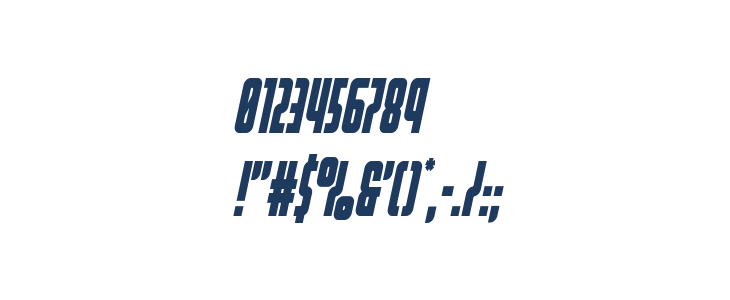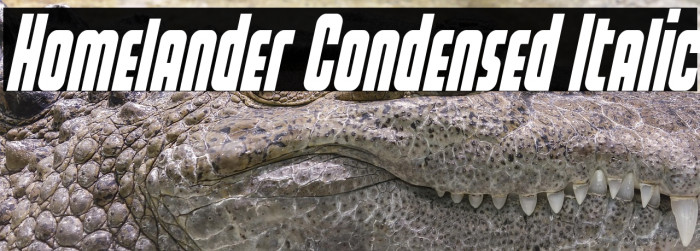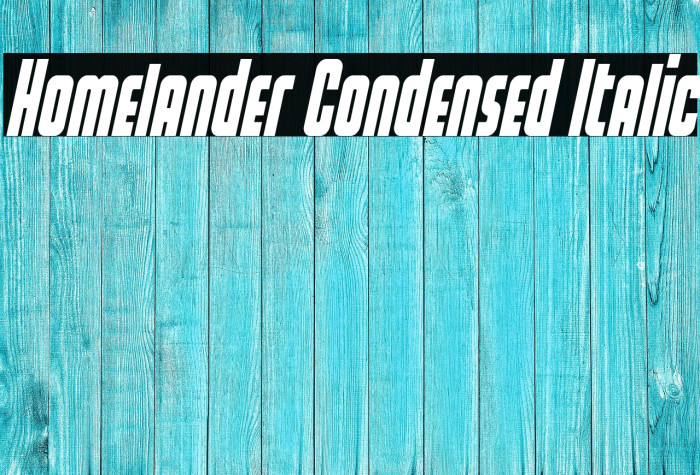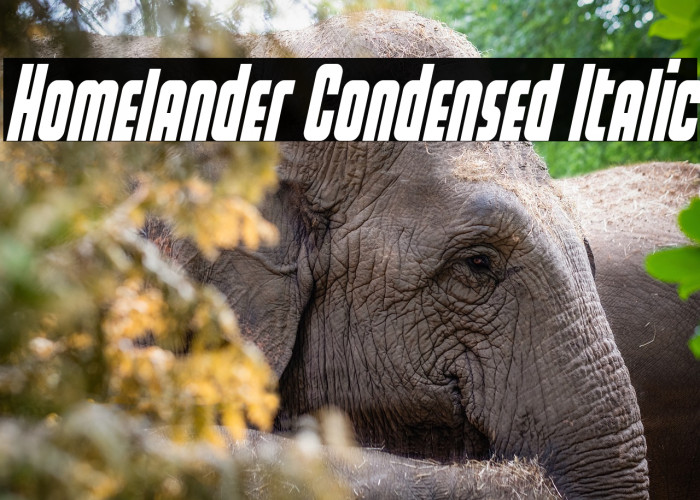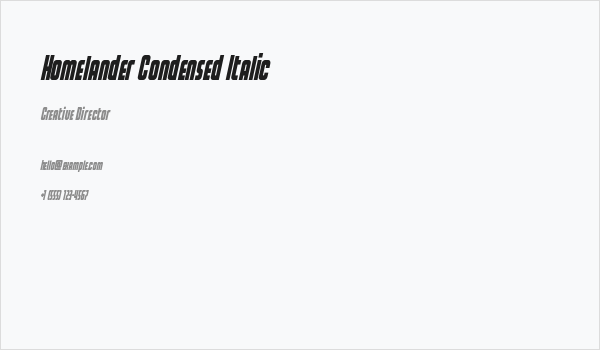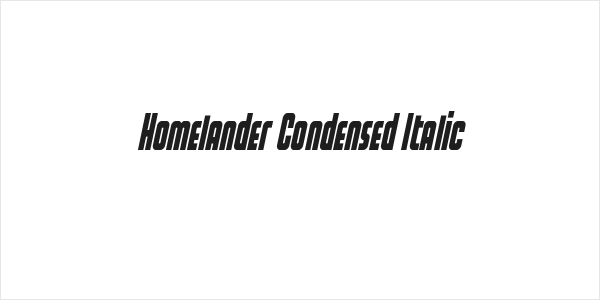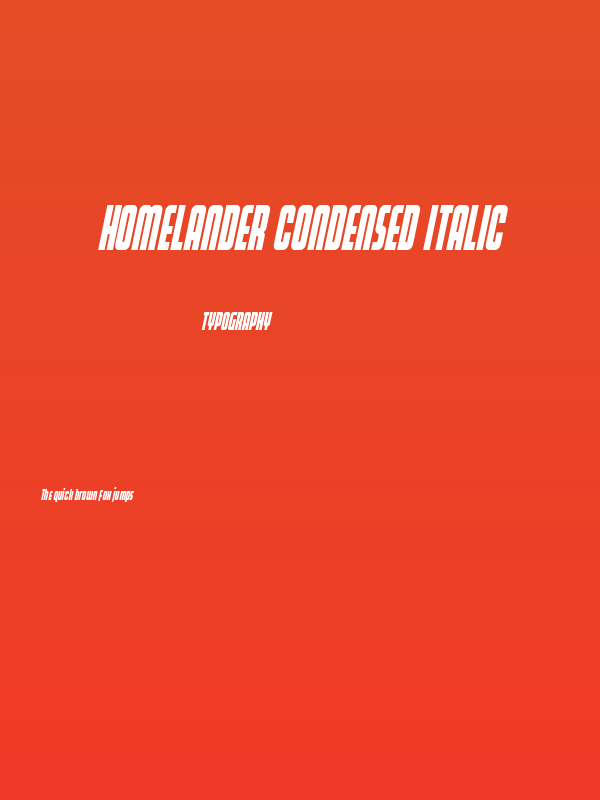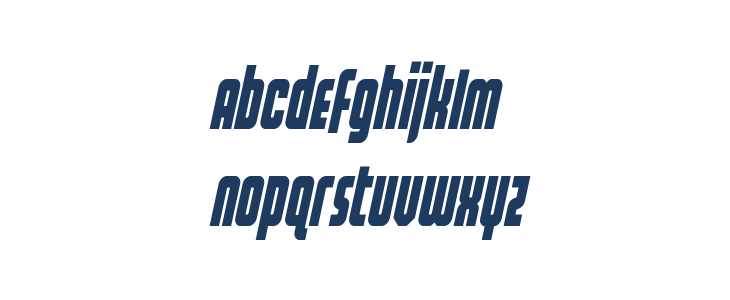
Homelander Condensed Italic Font
Homelander Condensed Italic Description
This font features a bold and dynamic style with a distinct italic slant, giving it a sense of motion and energy. The characters are condensed, which allows for efficient use of space while maintaining a strong visual impact. The uppercase and lowercase letters are well-balanced, with a consistent stroke width that enhances readability. The numerals and special characters are designed to match the overall aesthetic, ensuring a cohesive look across different uses. This font is ideal for projects that require a modern and assertive appearance.
Proposed ProjectsIdeal for sports branding, dynamic posters, modern advertising, and impactful headlines.